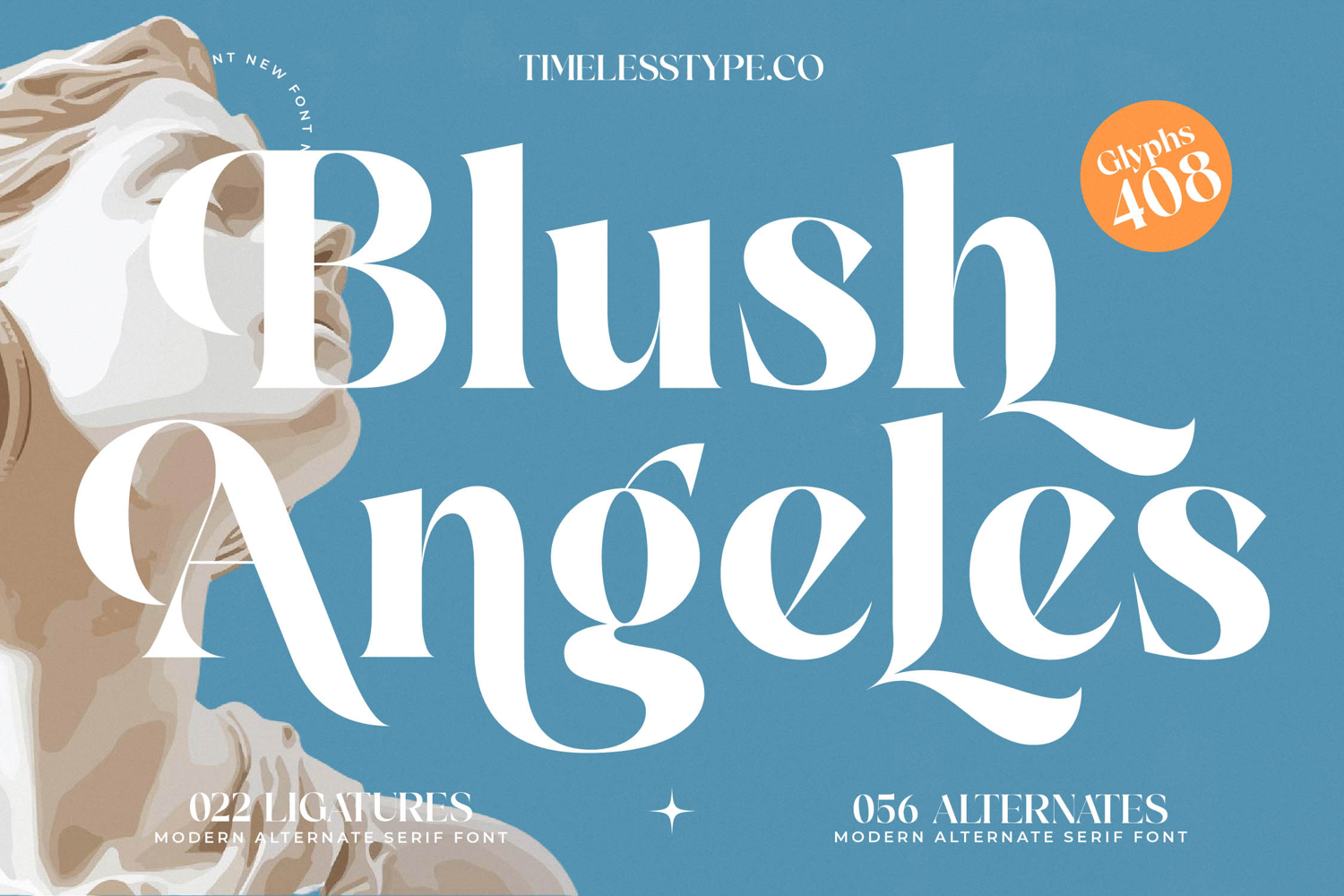
Blush Angeles - Modern Alternate Serif Font
Elevate your designs with the unparalleled sophistication of Font Blush Angeles - Modern Alternate Serif Font Serif Display. This exquisite display serif font masterfully blends classic elegance with contemporary flair, crafted for powerful visual impact. Its distinctive high-contrast strokes and graceful letterforms command attention, offering a truly luxurious aesthetic that instantly captivates. It’s the epitome of refined typography, designed for unforgettable impressions.
Unlock limitless creative possibilities with the rich features of Font Blush Angeles - Modern Alternate Serif Font Serif Display. Boasting an impressive collection of 022 ligatures and 056 alternate characters, this font provides exceptional flexibility to customize your text, ensuring unique and personalized results. With its extensive multilingual support, Font Blush Angeles - Modern Alternate Serif Font Serif Display adapts seamlessly across global markets, making it incredibly versatile for international projects.
Perfectly suited for projects demanding grandeur, Font Blush Angeles - Modern Alternate Serif Font Serif Display is your ultimate choice. It excels in luxury branding, editorial design, high-end packaging, and fashion magazines. Envision its impact on cosmetic labels, wedding invitations, or any application where prestige and refined style are paramount. This font is engineered to create an unforgettable, premium visual experience.
Invest in design excellence and transform your visual communications with Font Blush Angeles - Modern Alternate Serif Font Serif Display. Its timeless appeal and modern alternates ensure your message is delivered with authority and grace, leaving a lasting impression. Choose this exceptional serif font to imbue your projects with distinction and unrivaled typographic beauty, ensuring they stand out in any competitive landscape.